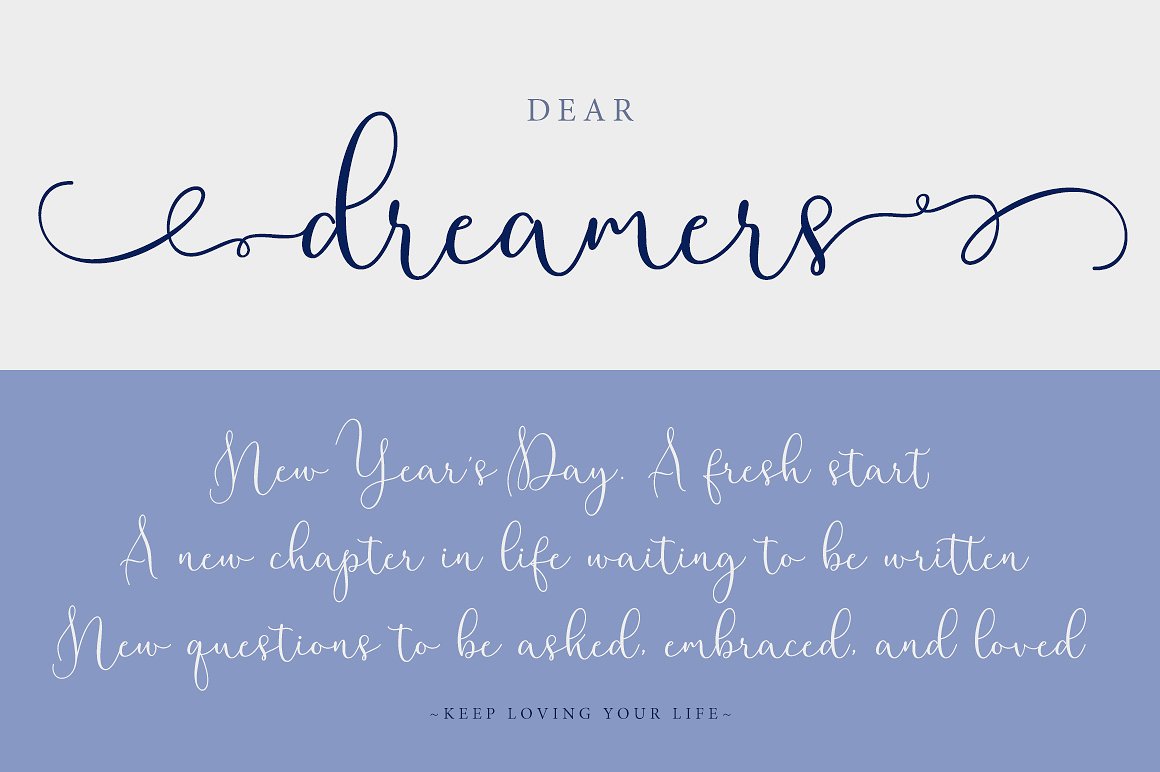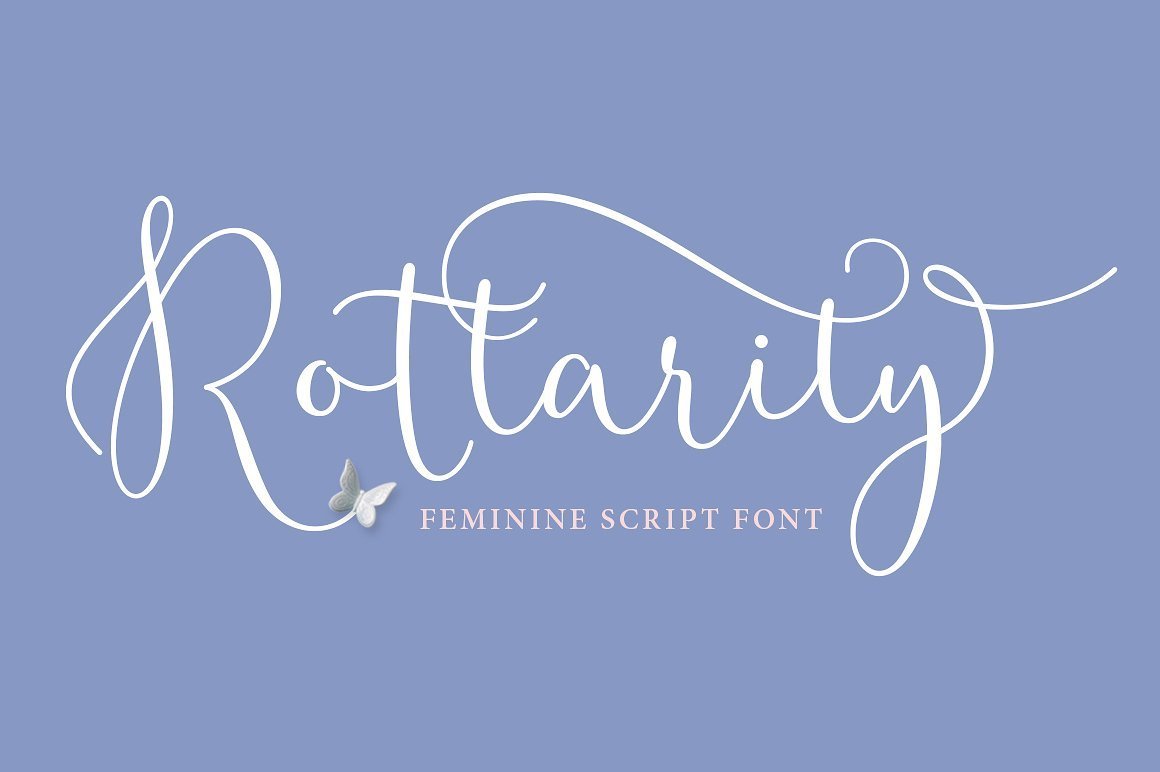
Rottarity Feminine Font
Rottarity Feminine Font is well-known for its script typeface. This typeface is likewise well-known for its reproduction and pastes function and it’s also a gift inside Microsoft phrase. A well-known content material creator took the all turning into for this lovely typeface. And he performs it for them gets the content material cloth state of affairs to look elegant.
He has were given the concept of in case you want to beautify issued due to the reality. In this manner, it in fact energy at the kinds of the t-shirts net web page. It is also known as bhatoshine font. Rottarity Feminine Font Free Now that you could moreover be referred to as it the new version of the sesame signerica font.
The majority of the designers have been the usage of it for their very personal systems. And a few others are taking it as a concept for making new typefaces.